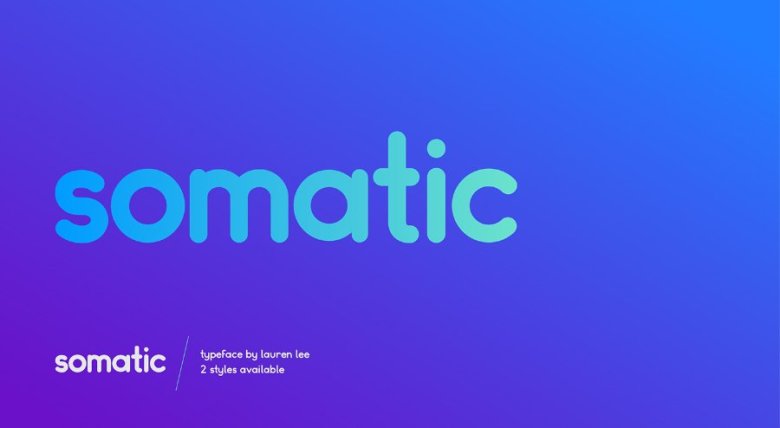
Somatic Font
Somatic Font is a modern typeface and style, designed by Lauren Lee, a professional designer. Somatic provides a skeleton for friendly, honest, and approachable logotypes.